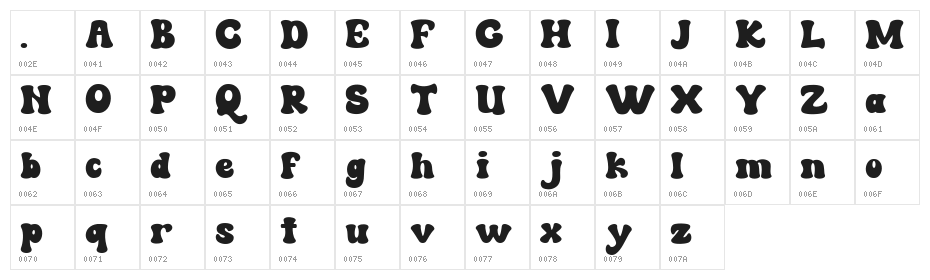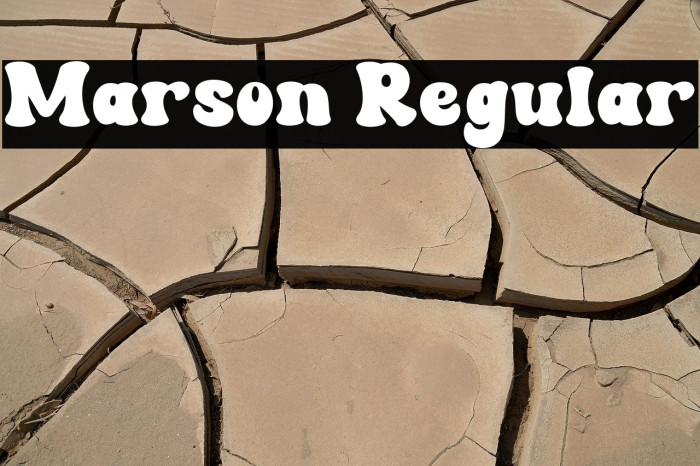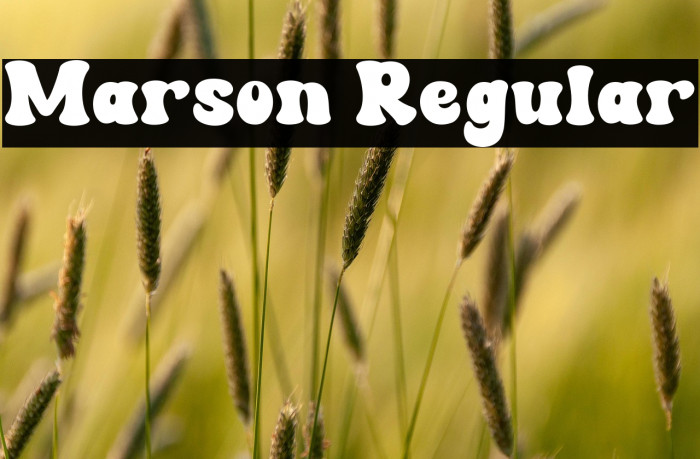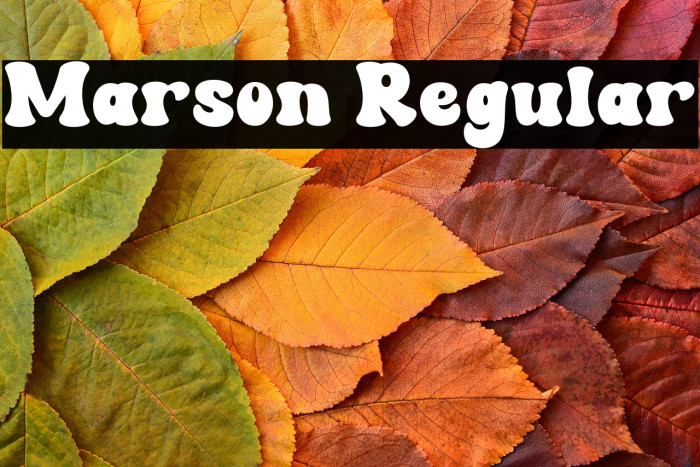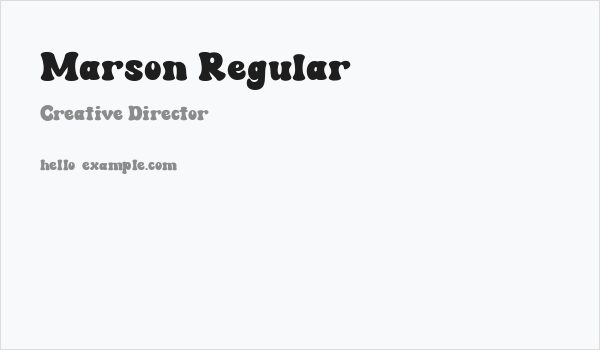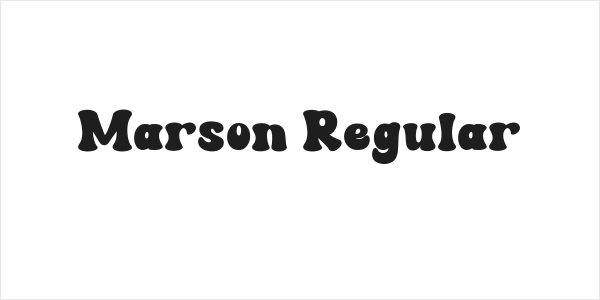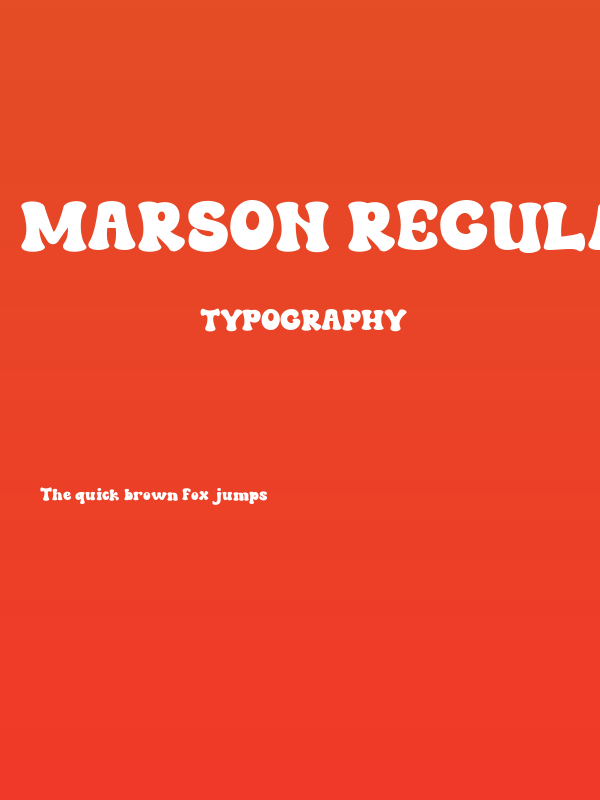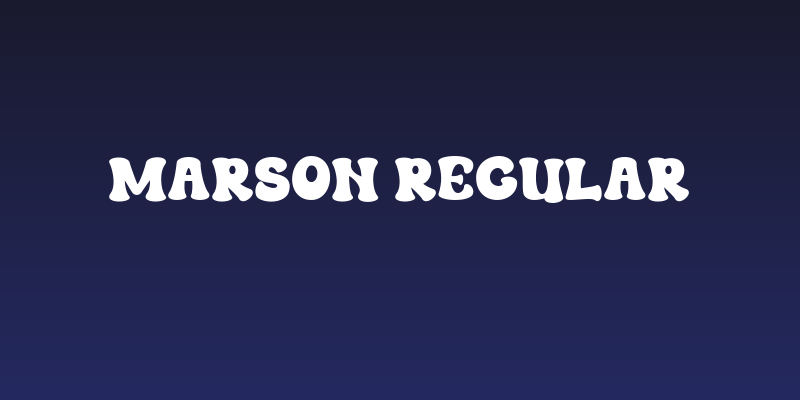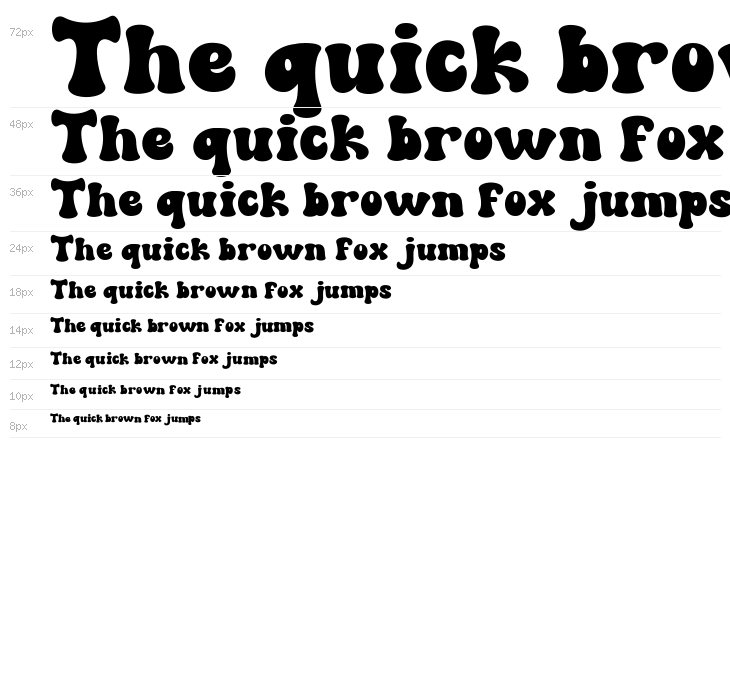
Marson Regular Font
Marson Regular Description
This font features a bold and playful design with rounded, bubbly characters that exude a sense of fun and whimsy. The letters are thick and substantial, with a uniform stroke width that gives them a strong presence on the page. The overall appearance is reminiscent of retro or vintage styles, making it ideal for projects that require a touch of nostalgia or a playful aesthetic. The characters are well-spaced, ensuring readability while maintaining the font's distinctive style. Its unique design makes it suitable for creative and eye-catching applications.
| Overall Style | Retro, Playful |
| Proposed Projects | Ideal for children's books, playful branding, retro-themed posters, and creative advertising. |